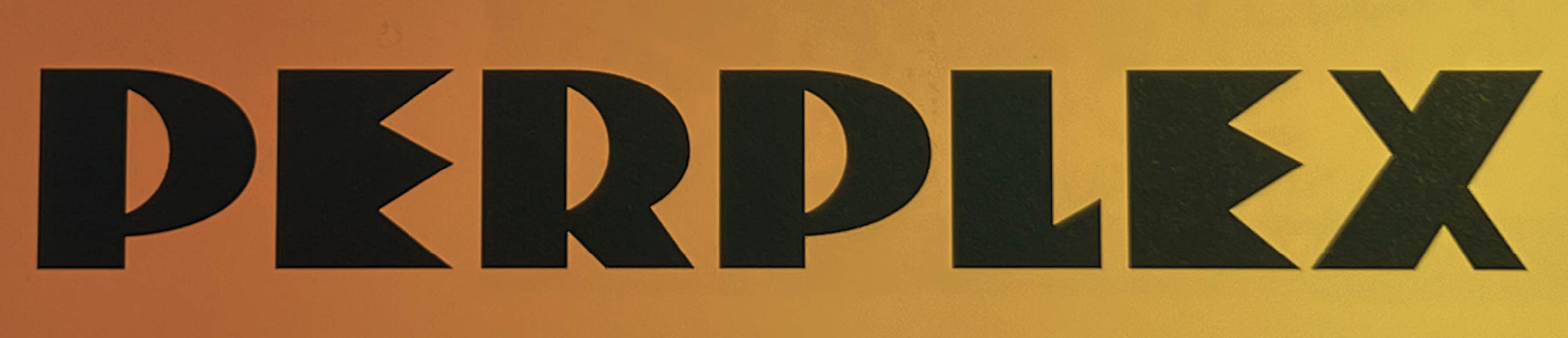
Perpleja
Perpleja is an expressive display typeface designed by Ramiro Espinoza and based on a striking and anonymous Dutch logo from 1930 discovered in Dutch Moderne, the book by Steven Heller and Louise Fili. With its sharp angles, and dramatic tension, the original lettering captured the restless energy and paroxysm of early 20th-century Expressionism—a mood that Perpleja channels and expands into a full, contemporary alphabet.
The name, meaning “perplexed” in Spanish, reflects the typeface’s emotional ambiguity and visual intensity. Neither purely geometric nor purely organic, Perpleja thrives in the in-between: awkward yet elegant, raw yet intentional. Its aggressive angles and radical letterforms make it ideal for logos, album and book covers, posters, and projects that demand a powerful and unconventional voice.
By transforming a single forgotten wordmark into a functional contemporary font, Ramiro reclaimed a fragment of Dutch graphic history and turned it into a useful asset for modern graphic design.